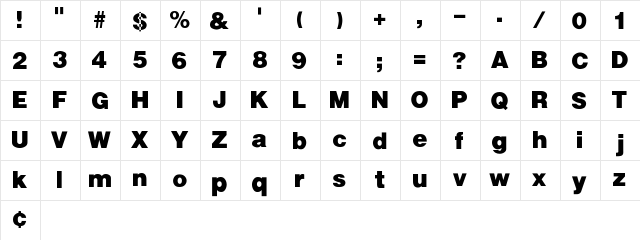
Hadaway Black Regular
Design Context for Hadaway Black Typeface
Hadaway Black takes a measured approach to typography — its balanced proportions and neutral character make it a reliable workhorse for both digital and print work.